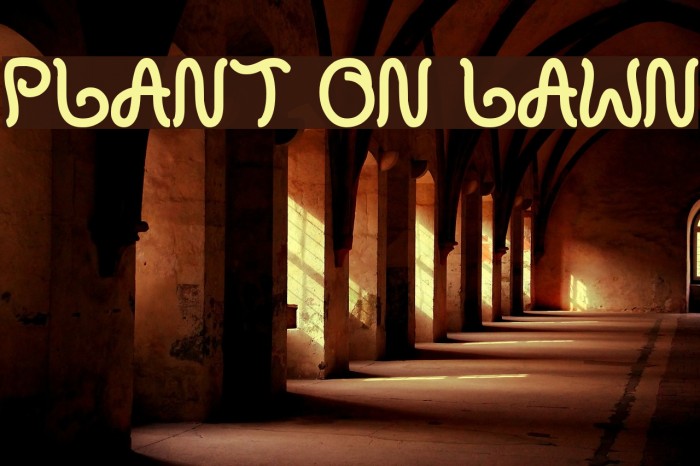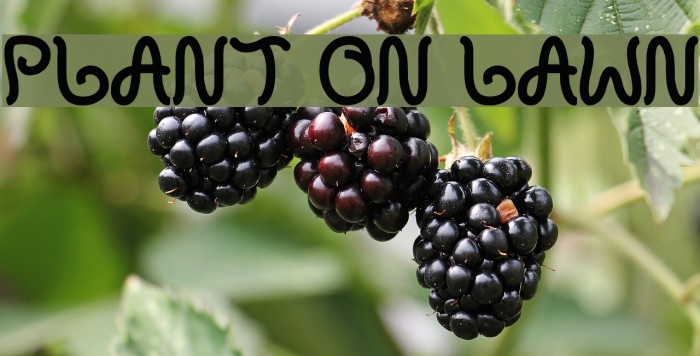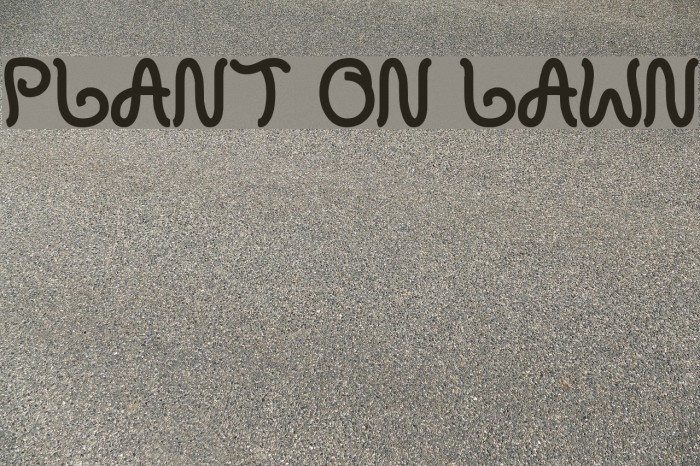
plant on lawn Font
This playful and whimsical font features rounded, flowing characters with a hand-drawn appearance. Each letter is crafted with a consistent stroke width, giving it a uniform look while maintaining a casual and friendly vibe. The characters are slightly condensed, enhancing readability while retaining a unique style. The font's organic curves and loops evoke a sense of fun and creativity, making it suitable for projects that aim to convey a lighthearted and approachable tone. Its distinctive style is perfect for capturing attention and adding a touch of personality to any design.
A playful, hand-drawn font with rounded, flowing characters.
- Proposed Projects: Ideal for children's books, playful branding, greeting cards, and creative posters.
- Overall Style: Whimsical